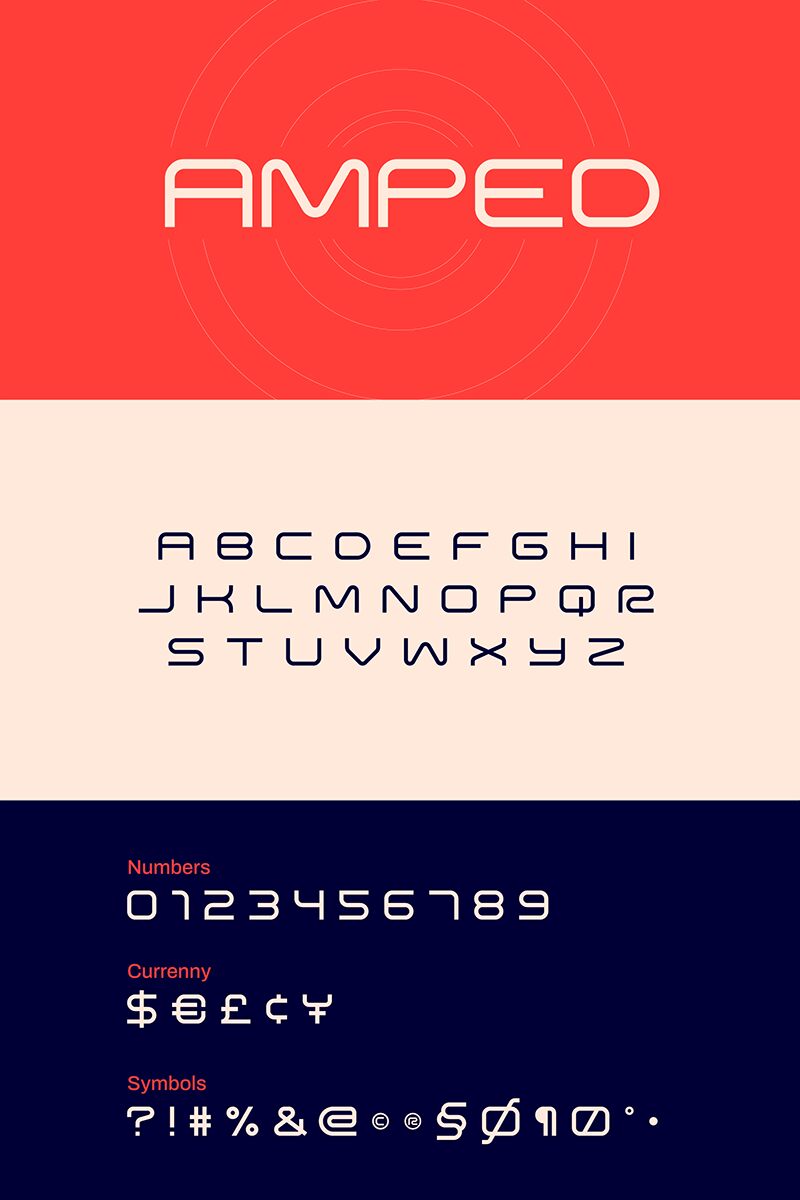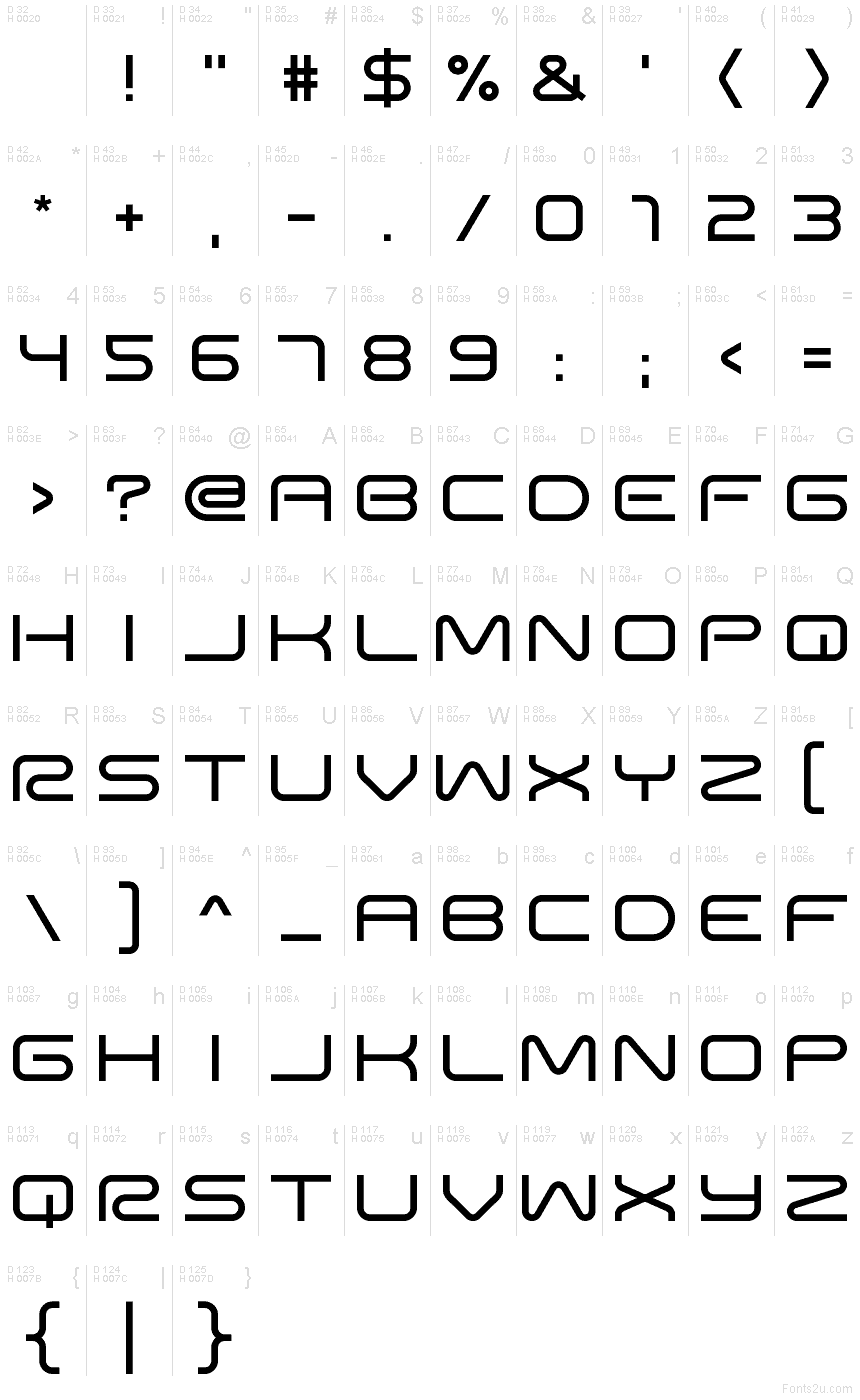
Amped
Amped font by Foyez Uddin is a free futuristic display font. It stands out with a sleek, tubular stroke and generous corner radii that turn every form into a smooth, rounded circuit. The rhythm is tight and steady, with squared terminals that keep the energy contained—clean, glossy, and distinctly high-tech without feeling cold.
Using Amped, headlines snap with sci‑fi polish on esports logos, tech event posters, app splash screens, product packaging, album covers, and motion graphics slates. The compact structure reads fast at large sizes, and its consistent weight holds up in neon or metallic treatments. For balance, pair this free font with a light geometric sans in small text or captions to let the bold shapes breathe.